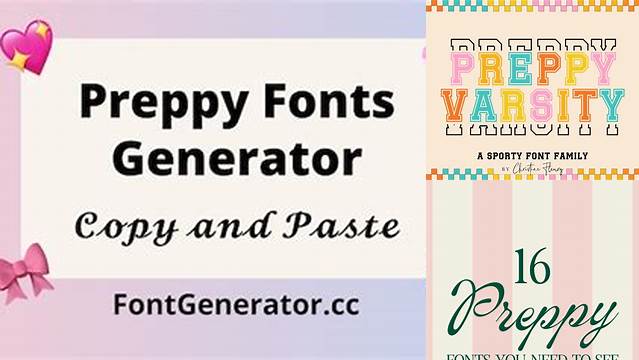
Preppy Fonts: Copy & Paste Guide For Stylish Text
Hey guys! Ever stumbled upon a super cute preppy font and wished you could use it everywhere? Well, you're in the right place! This guide is your ultimate resource for all things preppy fonts, from identifying them to easily copying and pasting them across your digital world. We'll dive into what makes a font "preppy," explore a variety of stunning options, and show you exactly how to use them to elevate your social media, school projects, or even just your everyday notes. Get ready to add a touch of classic elegance and modern flair with these amazing fonts!
What Makes a Font "Preppy"?
So, what exactly defines a preppy font? It's more than just a specific look; it's an aesthetic that evokes a sense of classic sophistication, timeless style, and a hint of playful charm. Think Ivy League, sailing clubs, and perfectly curated Instagram feeds – that's the vibe we're going for! Preppy fonts often incorporate elements of traditional typography with a modern twist. They tend to be clean, legible, and exude an air of polished grace. We're talking about fonts that look just as good on a monogrammed tote bag as they do on a digital invitation.
Generally, preppy fonts fall into a few key categories: Serifs, Sans-Serifs, and Scripts. Serif fonts, with their little “feet” or strokes at the end of letters, are a classic choice for a preppy look. Think Times New Roman, Garamond, or even Playfair Display – these fonts convey a sense of tradition and authority. They're perfect for headings, body text, or anything that needs a touch of elegance. Sans-serif fonts, on the other hand, are more modern and minimalist. Fonts like Helvetica, Arial, or Montserrat are clean and versatile, making them ideal for a contemporary preppy style. They're great for logos, website design, or social media graphics. Script fonts, which mimic handwriting, can add a touch of personality and flair to your preppy designs. Think of fonts that resemble elegant calligraphy or a stylish signature. These are best used sparingly, perhaps for headings or decorative elements, as they can sometimes be harder to read in large blocks of text. The key to identifying a preppy font is to consider its overall feel. Does it look polished and refined? Does it evoke a sense of classic style? Is it easy to read and visually appealing? If you answered yes to these questions, chances are you've found a winner!
Top Preppy Fonts to Copy and Paste
Now for the fun part! Let's explore some specific preppy fonts that you can easily copy and paste to use in your projects. We've gathered a mix of serif, sans-serif, and script fonts to give you plenty of options. Remember, the best font for you will depend on the specific look you're trying to achieve. Don't be afraid to experiment and mix and match different fonts to create a unique and stylish aesthetic. Here are some top contenders:
- Playfair Display: This elegant serif font exudes sophistication and grace. It's perfect for headings, titles, or any text that needs a touch of formality. Imagine this font on a wedding invitation or a stylish blog header – it just screams preppy chic! Its high contrast and delicate serifs make it a standout choice for a classic preppy look. You can easily copy and paste Playfair Display from various online font libraries or use it directly in design software like Canva or Adobe Photoshop.
- Montserrat: A clean and modern sans-serif font, Montserrat is incredibly versatile and perfect for a contemporary preppy style. It's highly legible and works well in a variety of sizes, making it ideal for body text, logos, or website navigation. Think of this font on a stylish business card or a sleek website design – it's modern preppy at its finest. Montserrat's clean lines and geometric forms give it a timeless appeal that fits perfectly within the preppy aesthetic. Copying and pasting Montserrat is a breeze, as it's widely available across different platforms and design tools.
- Raleway: Another fantastic sans-serif option, Raleway offers a slightly more delicate and refined feel than Montserrat. It's a great choice for headings, subheadings, or any text that needs a touch of elegance. Envision this font on a social media graphic or a stylish presentation – it's understated yet sophisticated. Raleway's versatility makes it a go-to choice for designers seeking a modern preppy font that's both functional and aesthetically pleasing. You can easily copy and paste Raleway from Google Fonts or other font repositories.
- Abril Fatface: For a bolder and more impactful look, Abril Fatface is an excellent choice. This serif font is perfect for headlines, posters, or any text that needs to grab attention. Imagine this font on a magazine cover or a striking advertisement – it's bold preppy with a modern edge! Abril Fatface's strong presence and distinctive serifs make it a memorable choice for projects that require a touch of drama. While it's not as subtle as some other preppy fonts, it can be incredibly effective when used strategically. Copy and paste Abril Fatface to add a touch of boldness to your designs.
- Mrs. Eaves: If you're looking for a script font with a touch of elegance and personality, Mrs. Eaves is a beautiful option. This font mimics handwriting and adds a personal touch to your designs. Think of this font on a handwritten note or a stylish invitation – it's classic preppy with a romantic flair! Mrs. Eaves is best used sparingly, perhaps for headings or decorative elements, as it can be harder to read in large blocks of text. However, when used correctly, it can add a touch of sophistication and charm to your projects. Copying and pasting Mrs. Eaves allows you to easily incorporate this elegant script into your designs.
These are just a few examples of the many preppy fonts available. Explore different options and find the ones that best suit your personal style and project needs. Remember to consider the overall feel of your design and choose fonts that complement each other. Mixing and matching different fonts can create a visually appealing and dynamic look, but it's important to maintain a sense of cohesion and balance.
Level Up Your Style with Preppy Fonts
So there you have it – your ultimate guide to preppy fonts! We've covered everything from what makes a font preppy to how to copy and paste them, and even some tips for using them effectively. Now it's time to put your newfound knowledge to use and elevate your style with these classic and chic fonts. Whether you're designing a wedding invitation, creating social media graphics, or simply want to add a touch of elegance to your everyday notes, preppy fonts are a fantastic choice. They evoke a sense of timeless style and sophistication, while also adding a touch of personality and flair. Remember to experiment with different fonts and combinations to find what works best for you. And most importantly, have fun with it! Typography is a powerful tool that can help you express your creativity and communicate your message effectively. So go ahead, embrace the preppy aesthetic, and let your fonts do the talking!